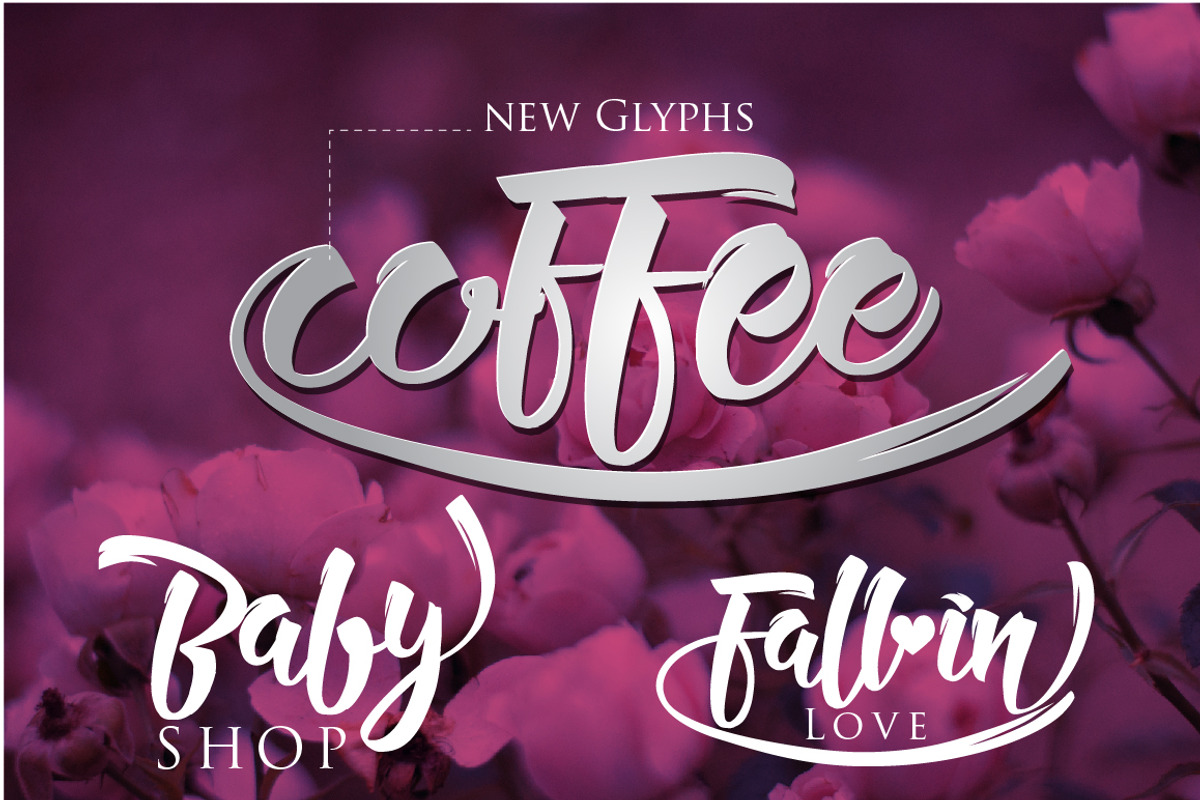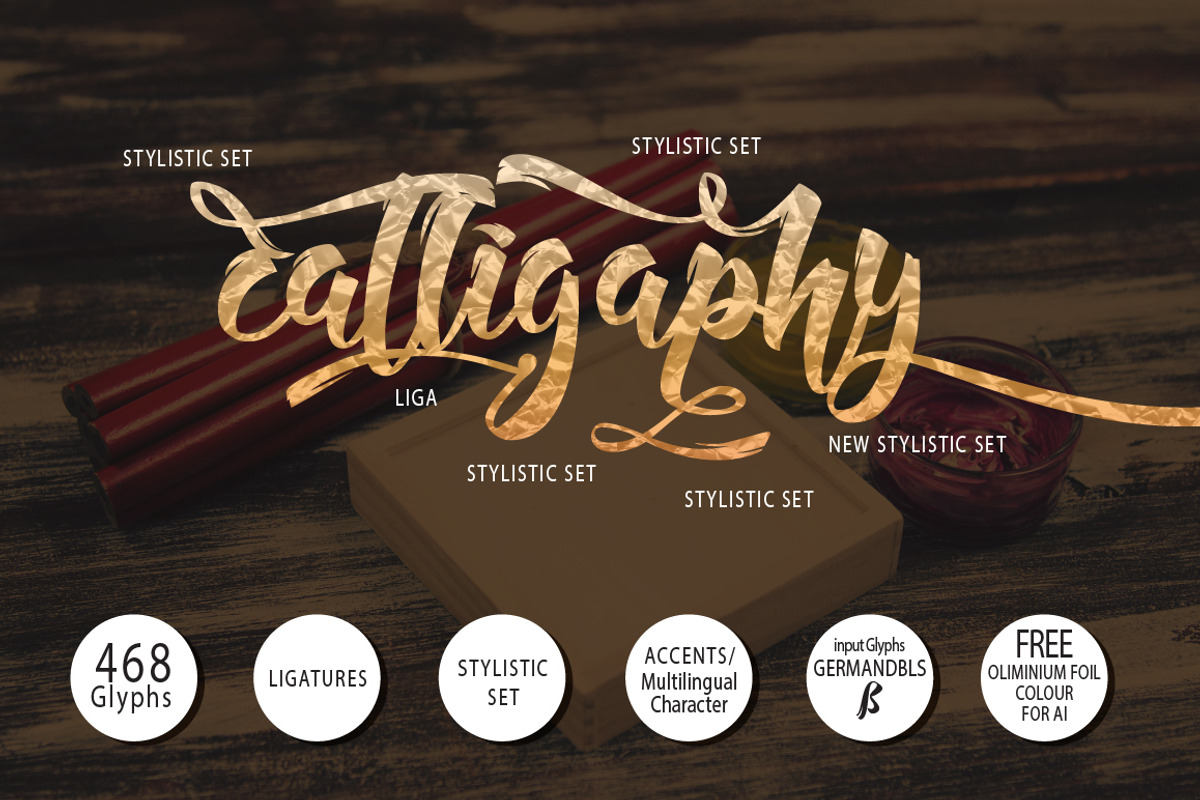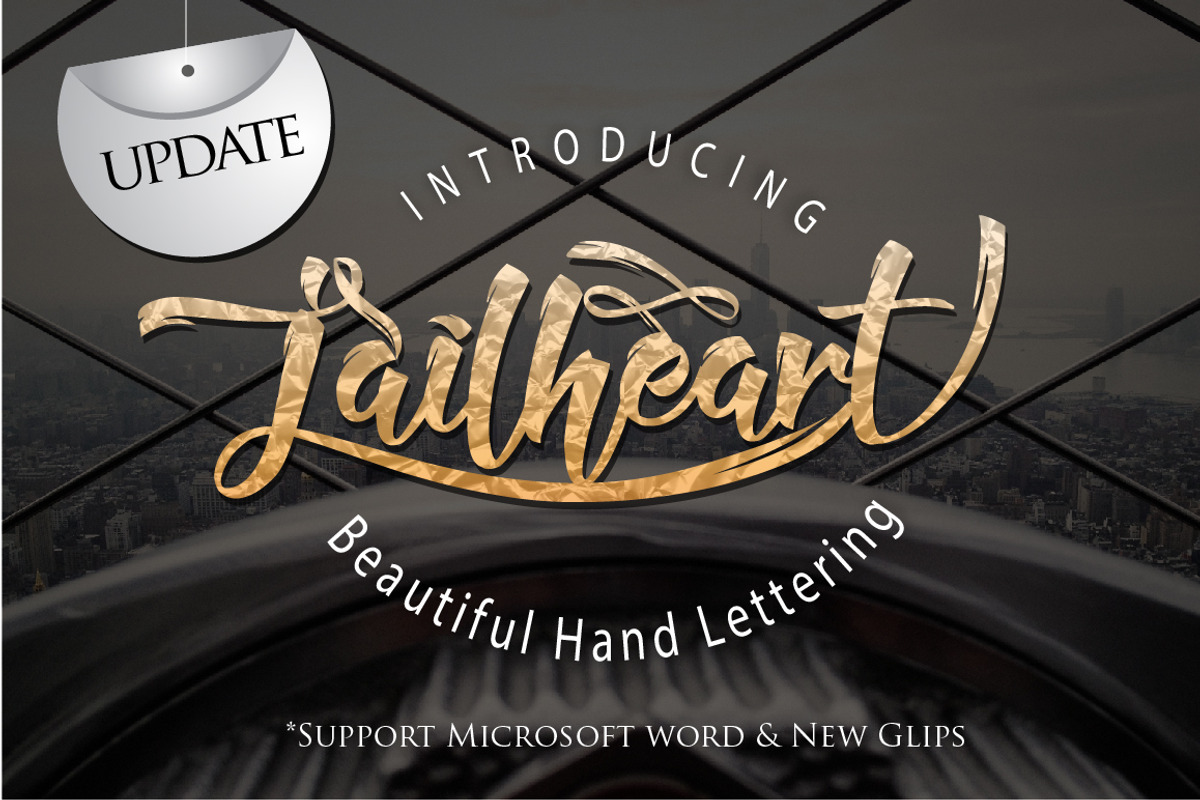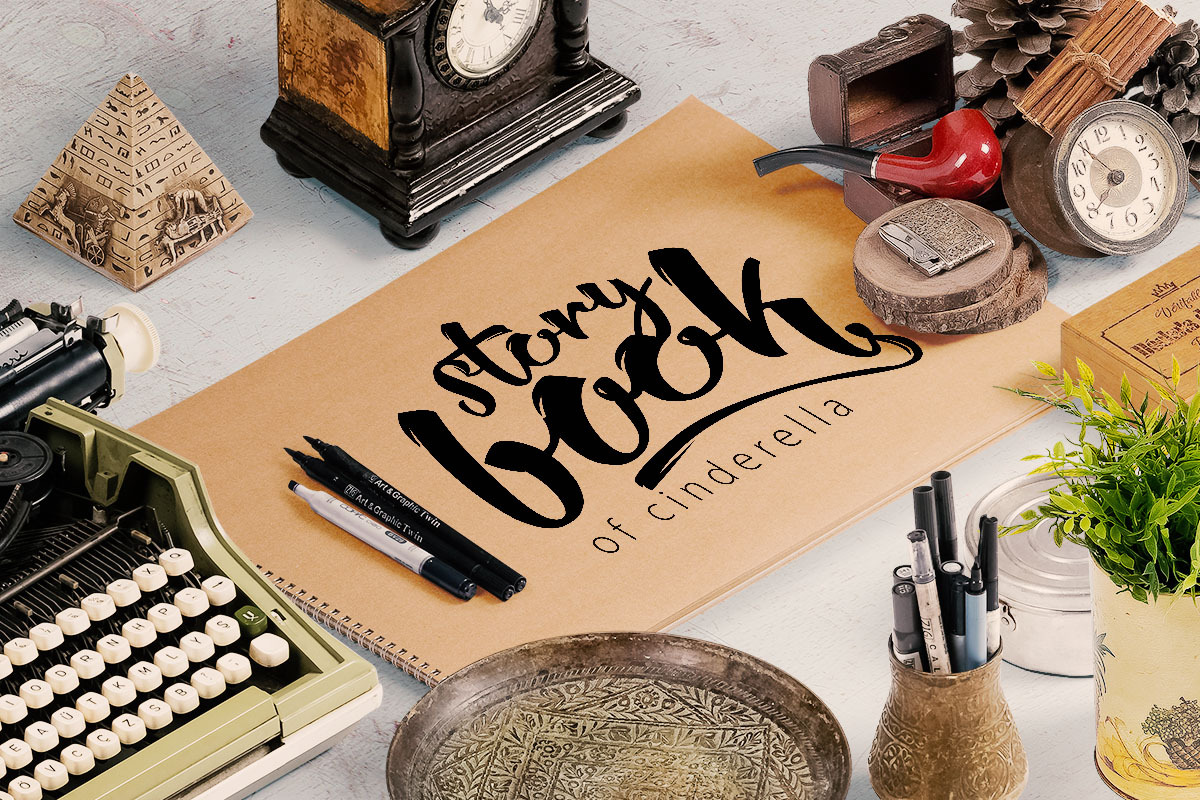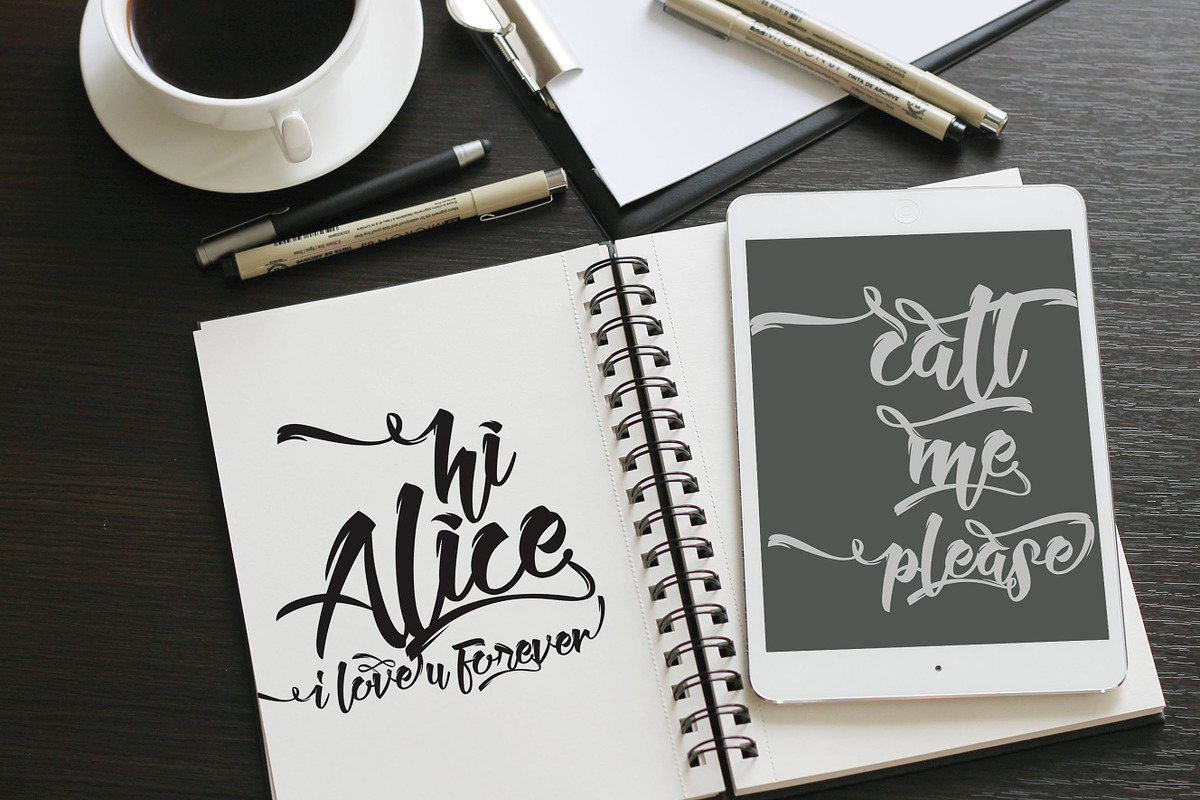
Jailheart Hand Lettering + bonus
jailheart is a beautiful hand lettering typeface that comes with a set of Beautiful extras. Highly Suitable for a variety of media design , logo, fashion, poster and all design product
Lowercase
Numerals & Punctuations
Accents (Multilingual characters)
Extras/Stylistic set
Ligature